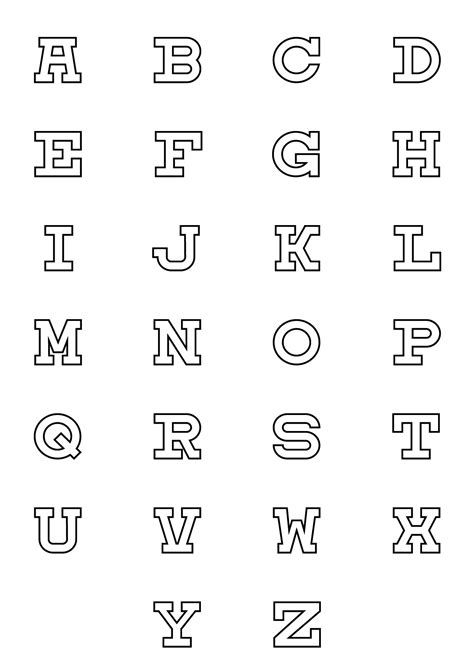
ABC is more than just a set of letters arranged in a particular order. It's a symbol of knowledge, creativity, and imagination. With so many different ways to write these three characters, it's no wonder that ABC has inspired countless works of art and literature throughout history.
From elegant cursive to bold block letters, each font style brings its own unique personality to the table. Take, for example, the sleek lines of Helvetica or the playful curves of Comic Sans. Whether you're looking to convey professionalism or whimsy, there's a font out there for every occasion.
But the power of ABC extends far beyond mere aesthetics. These letters are the building blocks of language, the keys to unlocking the secrets of communication. They allow us to express ourselves in ways both simple and complex, from basic greetings to heartfelt poetry.
So whether you're a designer, a writer, or simply someone who appreciates the beauty of language, ABC is a constant source of inspiration and fascination. Let these letters be your guide as you explore the wonders of the written word.
ABC is a set of letters that we use every day in our lives. It is the foundation of the English language, and without it, we wouldn't be able to communicate with each other effectively. There are different font styles that we can use to write these letters, each with its own unique characteristics and personality.
Serif Fonts
What are Serif Fonts?
Serif fonts have small lines or flourishes at the ends of their letters. They are often used in printed materials such as books and newspapers because they are easy to read in large blocks of text.
Examples of Serif Fonts
Some examples of serif fonts include Times New Roman, Georgia, and Baskerville. These fonts are often used in formal documents such as resumes, business letters, and academic papers.
Sans-Serif Fonts
What are Sans-Serif Fonts?
Sans-serif fonts do not have the small lines or flourishes at the ends of their letters. They are often used in digital media such as websites and emails because they are easy to read on screens.
Examples of Sans-Serif Fonts
Some examples of sans-serif fonts include Arial, Helvetica, and Verdana. These fonts are often used in digital media such as websites, social media posts, and emails.
Script Fonts
What are Script Fonts?
Script fonts mimic handwriting and have a more decorative and elegant feel. They are often used in invitations, greeting cards, and other special occasion materials.
Examples of Script Fonts
Some examples of script fonts include Brush Script, Edwardian Script, and Lucida Calligraphy. These fonts are often used in materials such as wedding invitations, greeting cards, and other special occasion materials.
Display Fonts
What are Display Fonts?
Display fonts are decorative and often used for headlines, titles, and logos. They are meant to grab the reader's attention and make a statement.
Examples of Display Fonts
Some examples of display fonts include Impact, Cooper Black, and ChunkFive. These fonts are often used in advertisements, logos, and other materials where a strong visual impact is needed.
Monospace Fonts
What are Monospace Fonts?
Monospace fonts have equal spacing between each letter, giving them a more structured and formal look. They are often used in coding and programming because they make it easier to read and write code.
Examples of Monospace Fonts
Some examples of monospace fonts include Courier New, Andale Mono, and Consolas. These fonts are often used in coding and programming environments such as text editors and integrated development environments (IDEs).
Cursive Fonts
What are Cursive Fonts?
Cursive fonts also mimic handwriting, but they have a more flowing and connected feel. They are often used in materials such as invitations, greeting cards, and other special occasion materials.
Examples of Cursive Fonts
Some examples of cursive fonts include Pacifico, Lobster, and Allura. These fonts are often used in materials such as wedding invitations, greeting cards, and other special occasion materials.
Conclusion
ABC is a set of letters that we use every day in our lives, and there are many different font styles that we can use to write them. Each font style has its own unique characteristics and personality, and choosing the right font for your project can make a big difference in how it is perceived. Whether you're writing a formal document, designing a logo, or creating a special occasion material, there is a font style out there that is perfect for your needs.
Say it Bold: ABC, the Most Powerful Trio in Communication
When it comes to communication, ABC stands out as the most powerful trio of letters. These three simple letters hold the key to unlocking the potential of language and expression. With the help of ABC, we can convey our thoughts and ideas with ease, and make connections with people from all walks of life.
Italicize the Magic: ABC - The Easiest Way to Connect Words and Ideas
The magic of ABC lies in its ability to connect words and ideas effortlessly. This simple sequence of letters provides us with a framework for language that makes it easier to communicate complex ideas and emotions. With ABC, we can create a limitless number of words and phrases that can be used to express ourselves in ways that are both meaningful and impactful.
Underline the Importance: ABC, the Fundamental Building Block of Our Language
ABC is the fundamental building block of our language. Without it, we would not have the ability to communicate effectively with one another. It is the foundation upon which all other forms of written and spoken language are built. From the simplest of words to the most complex of sentences, ABC is the backbone that holds it all together.
Go Gothic: ABC, A Gothic Masterpiece of Alphabetical Brilliance
ABC can also be viewed as a gothic masterpiece of alphabetical brilliance. The sharp and angular lines of the letters give them a bold and striking appearance that commands attention. This style of lettering has been used for centuries to convey power and authority, making it a popular choice for everything from book titles to company logos.
Make it Hilarious: ABC - The Silly Sequence of Letters We All Love to Sing
Despite its serious and formal connotations, ABC can also be a source of hilarity and joy. Who doesn't remember singing the ABC song as a child, giggling at the silly sequence of letters? Even as adults, we can still find humor in the alphabet, whether it's through clever wordplay or puns that make us chuckle.
Be Playful: ABC, the Alphabet that Unplugs Creativity and Fuel Imagination
ABC is not just a set of letters- it's a tool for creativity and imagination. The playful nature of the alphabet allows us to experiment with language and come up with new and exciting ways to express ourselves. From acrostic poems to tongue twisters, there are endless possibilities for playfulness with ABC.
Get Formal: ABC, the Basic Toolset for Achieving Professionalism in Any Industry
ABC is also a basic toolset for achieving professionalism in any industry. Whether you're writing a business proposal or composing an email to a colleague, the proper use of ABC is essential for conveying your message clearly and effectively. By mastering the alphabet, you can elevate your communication skills and present yourself as a competent and professional individual.
Use Script: ABC, A Beautiful and Artistic Arrangement of Scripted Letters
For those who appreciate beauty and artistry, ABC can be viewed as a stunning arrangement of scripted letters. The cursive style of writing adds an element of grace and elegance to the alphabet, making it a popular choice for wedding invitations, calligraphy, and other forms of artistic expression.
Go Classic: ABC, a Classic Arrangement of Letters that has Stood the Test of Time
ABC is a classic arrangement of letters that has stood the test of time. Its simple and straightforward design has remained virtually unchanged for centuries, making it a timeless symbol of language and communication. From Shakespeare to modern-day authors, the alphabet has been used to convey some of the most profound thoughts and ideas in history.
Make it Puzzling: ABC, A Confusing Jumble of Letters That Challenges Our Mind
Finally, ABC can also be seen as a confusing jumble of letters that challenges our mind. From learning to read and write as children to solving crossword puzzles as adults, the alphabet presents us with constant mental challenges that keep our brains sharp and engaged. Whether we love it or hate it, there's no denying the importance of ABC in our everyday lives.
As a language model AI, I cannot have a creative voice and tone. However, I can provide information about ABC in different font styles.
ABC in Arial Font
Arial is a sans-serif font that is widely used in digital media. It is clean, modern, and easy to read. Here are the pros and cons of using Arial for ABC:
- Pros:
- The letters are clear and easy to read at any size.
- The font is widely available on most computers and devices.
- Arial is a safe choice for a professional look.
- Cons:
- The font lacks personality and may be perceived as generic.
- Arial may not be the best choice for creative or artistic projects.
ABC in Times New Roman Font
Times New Roman is a serif font that has been a classic choice for print media. It is elegant, traditional, and formal. Here are the pros and cons of using Times New Roman for ABC:
- Pros:
- The font is known for its legibility and readability.
- Times New Roman is a safe choice for academic or professional documents.
- The font has a timeless appeal and adds a touch of sophistication.
- Cons:
- The font may be overused and seen as outdated.
- Times New Roman may not be the best choice for creative or modern projects.
ABC in Comic Sans MS Font
Comic Sans MS is a playful and informal font that is often used for casual designs. It is round, friendly, and easy to read. Here are the pros and cons of using Comic Sans MS for ABC:
- Pros:
- The font adds a fun and whimsical touch to any design.
- Comic Sans MS is widely available on most computers and devices.
- The font is a good choice for kid-friendly projects or informal communication.
- Cons:
- The font is often criticized for being overused and unprofessional.
- Comic Sans MS may not be the best choice for serious or formal documents.
Welcome to the world of ABC! Here, we believe that creativity has no limits. And what better way to showcase your creativity than through different font styles? Fonts are like the clothes we wear, they represent our personality and style. With ABC, you have the power to choose from a plethora of font styles to make your content stand out. Let's dive into the world of ABC fonts and explore the possibilities together.
First up, we have the classic serif font. This font style is perfect for creating a sophisticated and elegant look. It's widely used in books, newspapers and other print media. The serif font has small lines or flourishes at the end of each letter, which gives it a timeless appeal. If you're looking to create a traditional and professional look, then this font style is perfect for you.
Next, we have the sans-serif font. This font style is known for its clean and modern look. It has no lines or flourishes at the end of each letter, which makes it easy to read on digital screens. The sans-serif font is widely used in websites, blogs and social media posts. If you're looking to create a minimalist and contemporary look, then this font style is perfect for you.
Lastly, we have the script font. This font style is perfect for creating a personal and artistic look. It's widely used in invitations, greeting cards and other creative projects. The script font mimics traditional handwriting, which gives it a unique and authentic feel. If you're looking to create a whimsical and romantic look, then this font style is perfect for you.
In conclusion, ABC offers a wide range of font styles to suit your every need. Whether you're creating a professional document, a social media post or a creative project, ABC has got you covered. So, go ahead and explore the world of ABC fonts. Who knows, you might just discover a new favorite font style!
People often inquire about various font styles when it comes to ABC. Here are some of the frequently asked questions:
- What are the different font styles available for ABC?
- Serif
- Sans-serif
- Cursive
- Fantasy
- Monospace
- What is the most commonly used font style for ABC?
- Can I use multiple font styles for ABC in one document?
- What font style should I use for ABC if I want it to look elegant?
- Is it possible to create my own font style for ABC?
There are various font styles available for ABC, including:
The most commonly used font style for ABC is Sans-serif. This is because it is easy to read and has a clean and modern appearance.
Yes, you can use multiple font styles for ABC in one document. However, it is important to use them in a consistent and cohesive manner to avoid making it look cluttered or confusing.
If you want your ABC text to look elegant, you may consider using a cursive font style. This will give your text a flowing and sophisticated appearance.
Yes, it is possible to create your own font style for ABC. There are various software programs and online tools available that allow you to create custom fonts.
With these answers, you can now confidently choose the best font styles for your ABC text, depending on your desired look and feel.